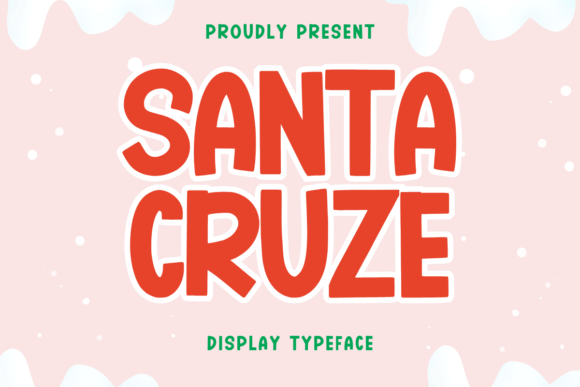
Introducing Santa Cruze Font, the ultimate choice for anyone seeking the perfect display font! With its unique, bold, and cute design, Santa Cruze is a must-have addition to your font library. Created by the talented team at SiapGraph, this font is guaranteed to captivate your audience and elevate your designs to new heights.
Why settle for ordinary when you can have extraordinary? Santa Cruze Font brings a refreshing touch to any project, making it stand out from the crowd. Whether you're creating eye-catching display boards, captivating social media graphics, or stunning website banners, this font is here to transform your ideas into visual masterpieces.
Unlock your creativity with Santa Cruze Font's endless possibilities. Its playful and stylish characters will instantly grab attention and leave a lasting impression on your audience. From bold headlines to elegant logos, this versatile font adapts effortlessly to any design style, making it the perfect choice for both professional designers and beginners alike.
One of the most remarkable features of Santa Cruze Font is its ability to evoke emotions. It effortlessly conveys a sense of joy, optimism, and excitement, making it ideal for projects that aim to inspire, uplift, or simply spread happiness. Imagine the impact of using this font in children's books, party invitations, or cheerful brand identities. It's like a burst of sunshine in every letter!
But Santa Cruze Font is not just about looks. It's also optimized for superior performance, ensuring optimal legibility and readability across different mediums. Your message will shine through crystal clear, whether it's on printed materials, digital platforms, or even large-scale displays. Say goodbye to blurry or pixelated fonts and embrace the crispness and sharpness of Santa Cruze.
Don't miss out on the opportunity to make your designs truly unforgettable. Santa Cruze Font is a game-changer, a font that will take your creations to the next level. It's time to leave a lasting impression, to be remembered, and to make a statement. Let Santa Cruze Font be the secret weapon in your design arsenal, ready to charm and enchant with every stroke.